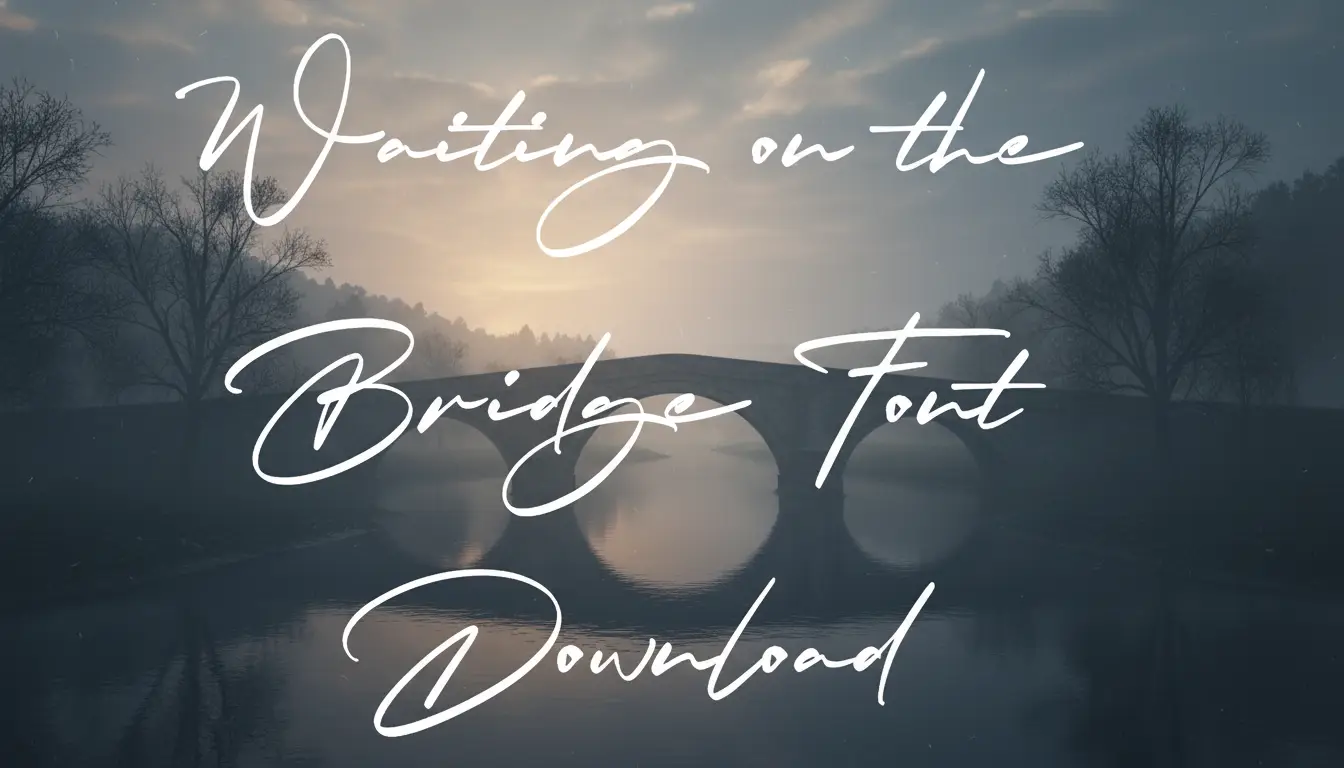
Waiting on the Bridge Font
Waiting on the Bridge is a script font created by Octotype. Its flowing, pen-made letters give names and short phrases a personal, polished look. You can download it for free and test it with your own words in the preview above.
What You Can Type With Waiting on the Bridge
You get every letter from A to Z in both cases and all the numbers from 0 to 9, which means Waiting on the Bridge can handle full sentences, dates and prices. Everyday marks like &, !, ? and @ are there too. Thanks to its accented letters, it also works for Spanish, French, Portuguese and Italian, not just English.
Where Waiting on the Bridge Works Best
Designers usually reach for fonts like Waiting on the Bridge when they're making wedding invitations, logos and signature-style headings. Script fonts read best in short bursts, so keep it to names, titles and one-line quotes. Skip all caps: script capitals are drawn to start a word, not to fill one.
Does Waiting on the Bridge support accented letters?
Yes. Waiting on the Bridge includes the accented letters needed for Spanish, French, Portuguese and Italian, so it works for more than just English.